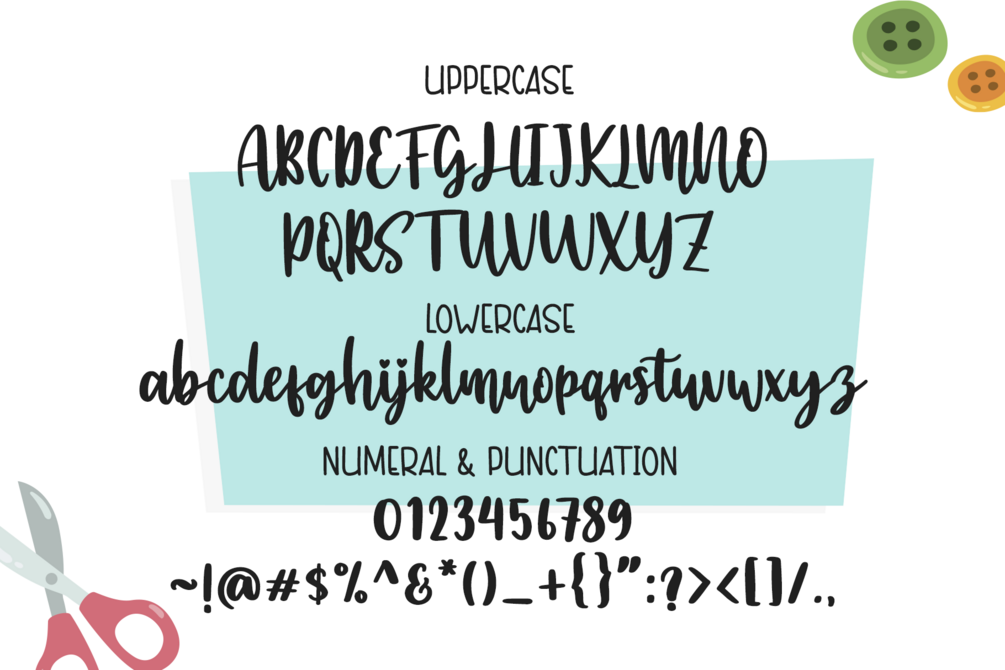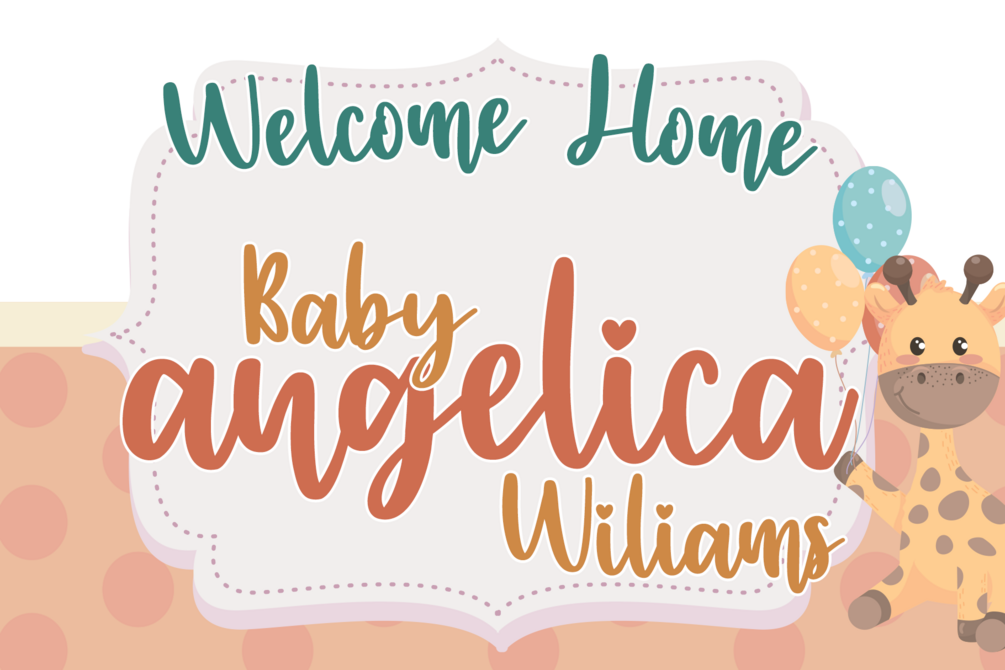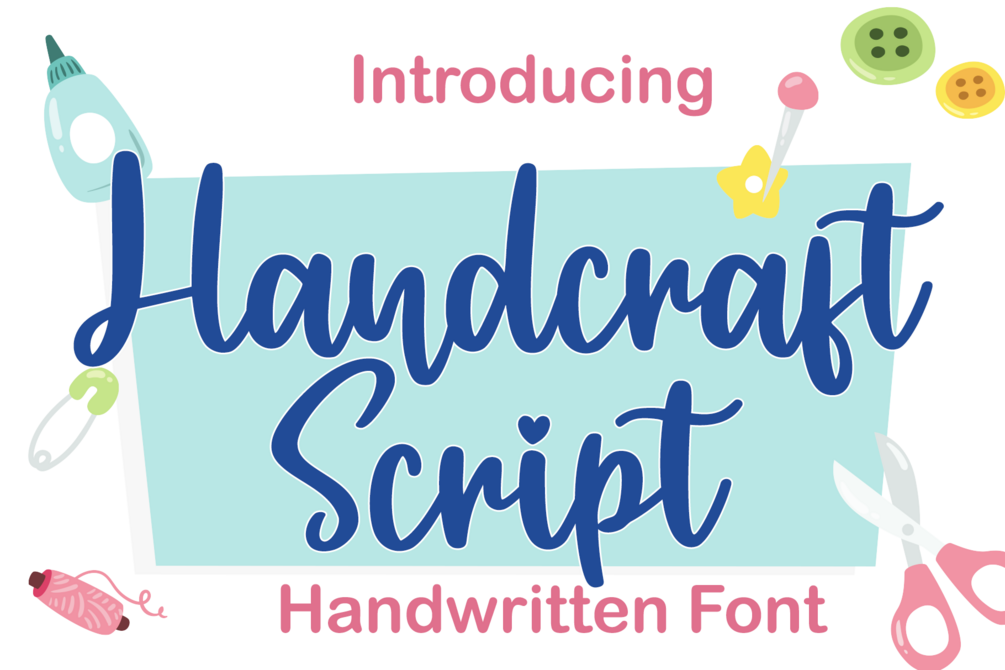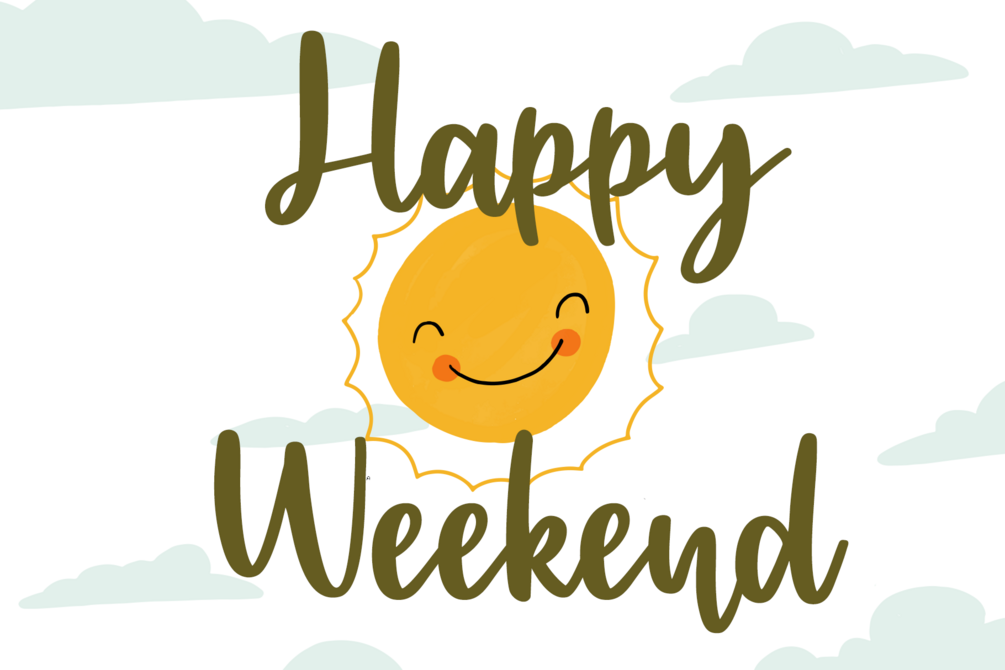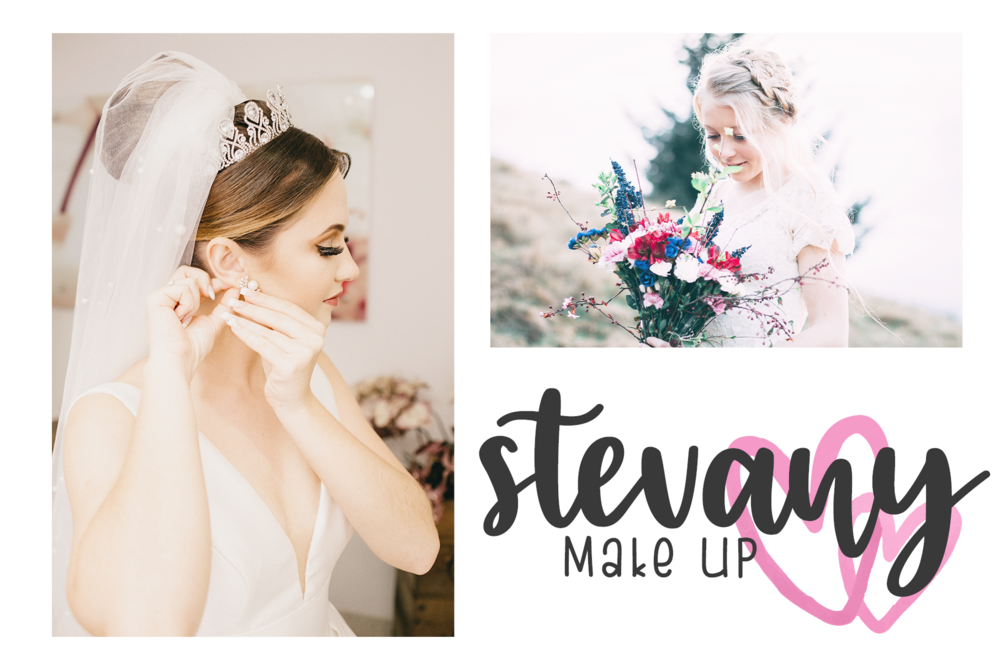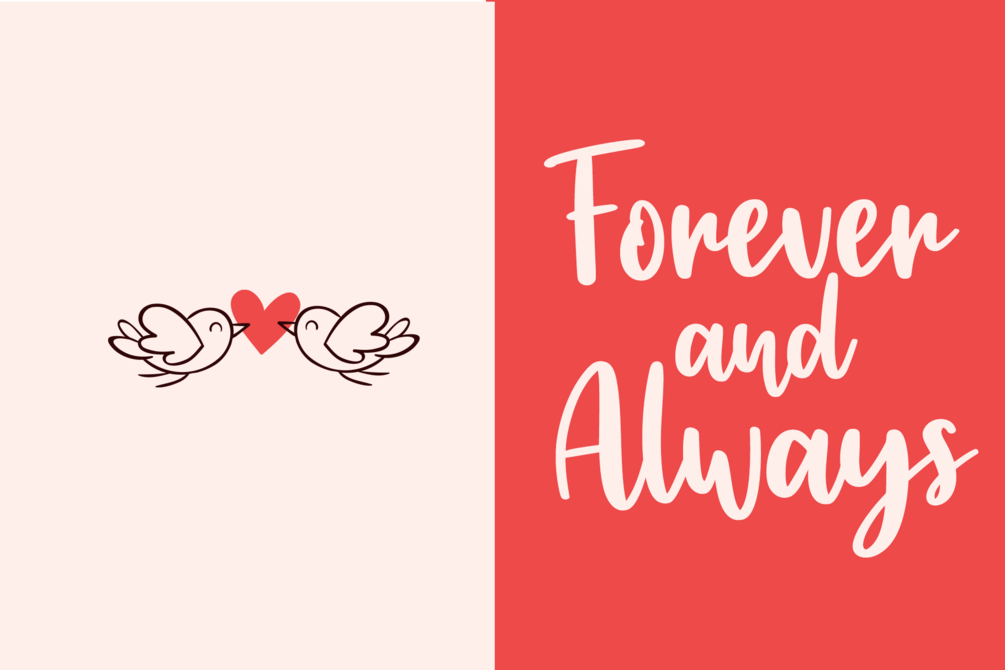
Handcraft Script
Handcraft Script is a lovely, authentic handwritten calligraphy font designed to bring a warm, personal, and artisanal feel to all your creative projects. Whether you are seeking a charming script font for social media graphics, a reliable calligraphy typeface for DIY crafts, or a unique touch for your branding projects, Handcraft Script instantly transforms any idea into a genuine piece of art. This font is fully PUA Encoded, ensuring you can easily access all the charming glyphs and swashes without needing special design software, making it perfect for craft users (Cricut/Silhouette).
• Ligature Characters
• Multilingual Support (Extended Characters)